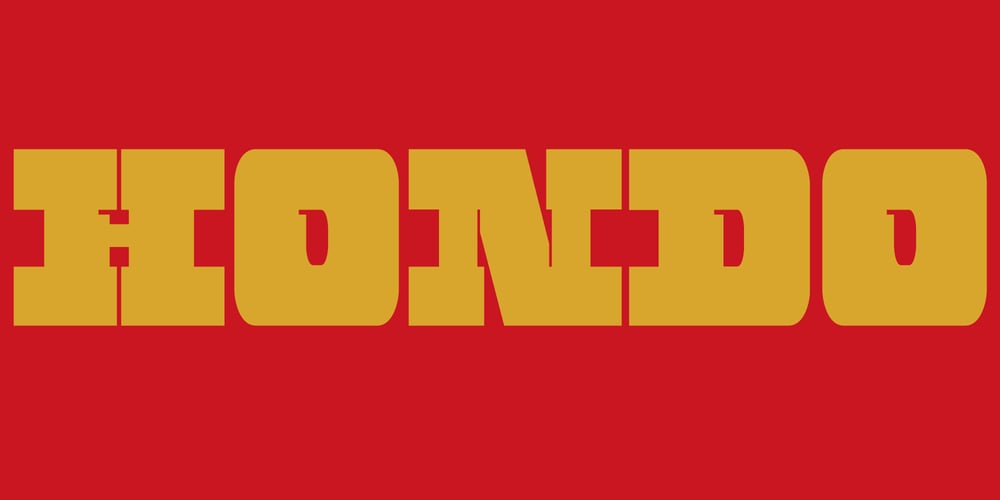
Hondo Font Family was designed by Sawyer Hume and published by Fontasmic. Hondo contains 3 styles and family package options. The Old West and Outrageous Woodtype styles collide in this collection of ultrabold slab serif typefaces with a dynamic look. Hondo is accented with decorative and functional inktraps and comes complete with variants of Slant and Backslant styles. This heavyweight has a high performance racey feel to it. Ideal for titling, poster work, logos, and small bits of copy.